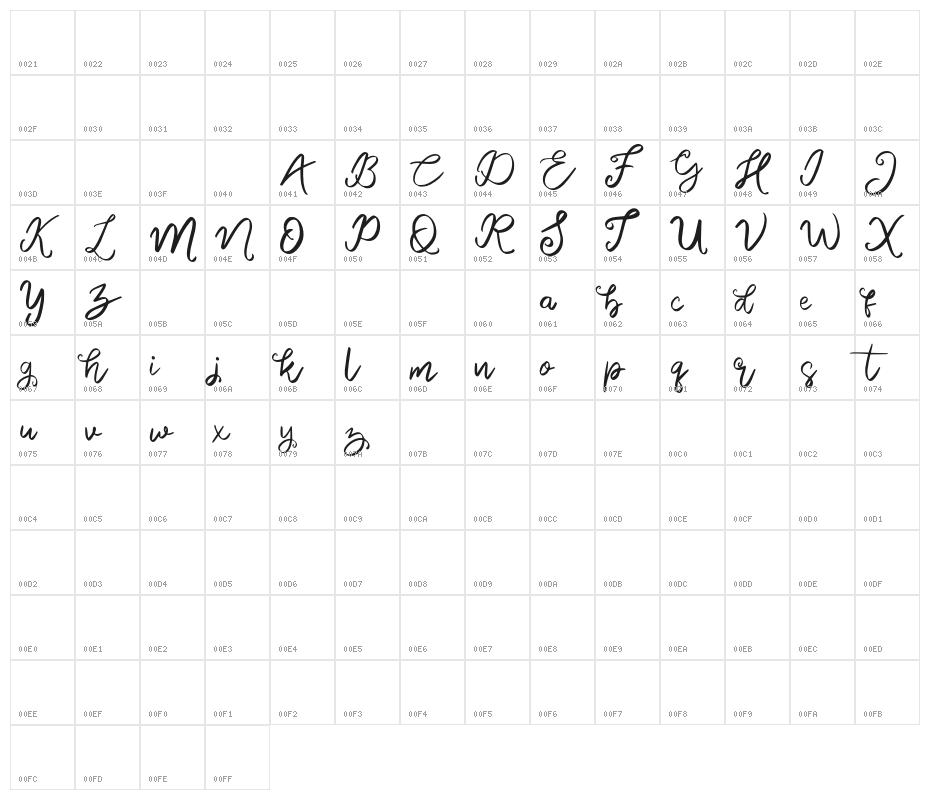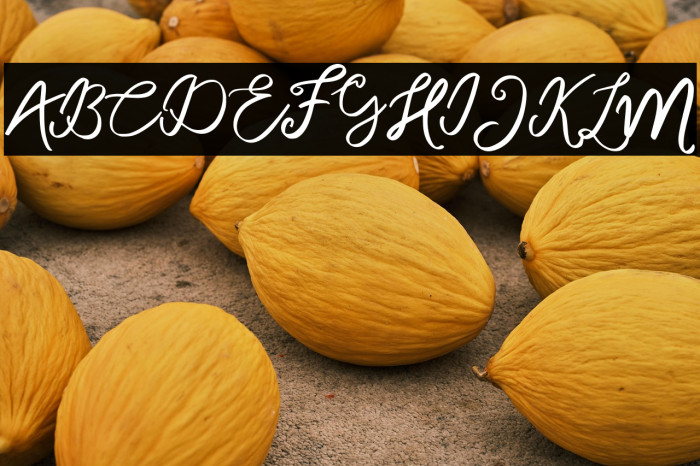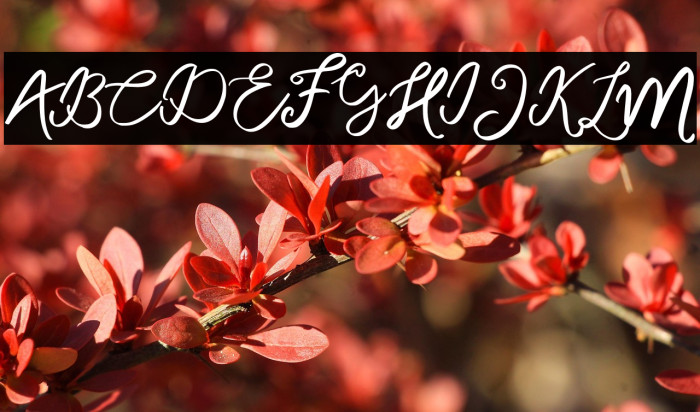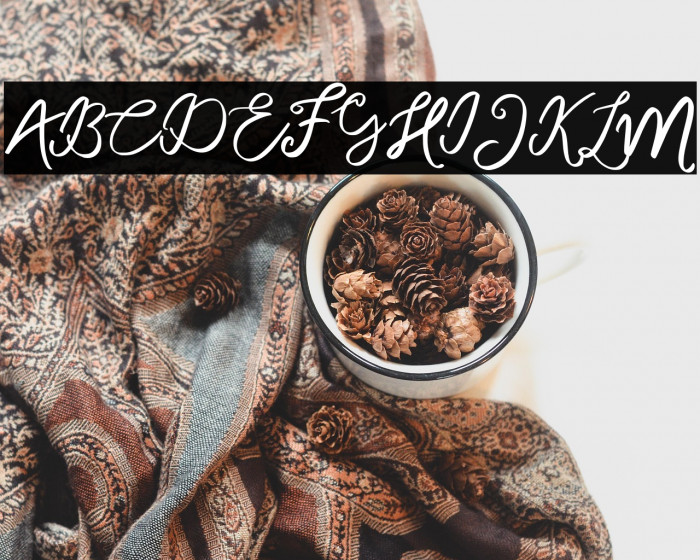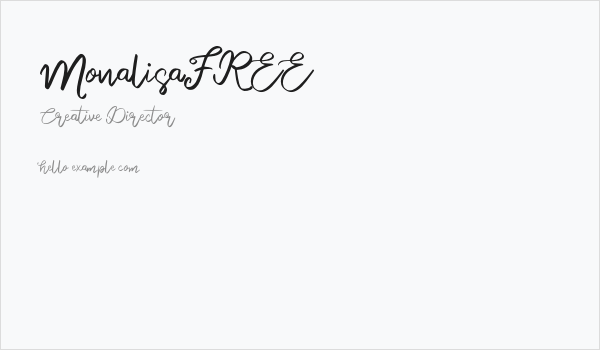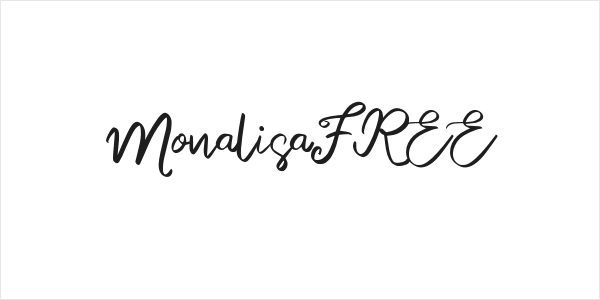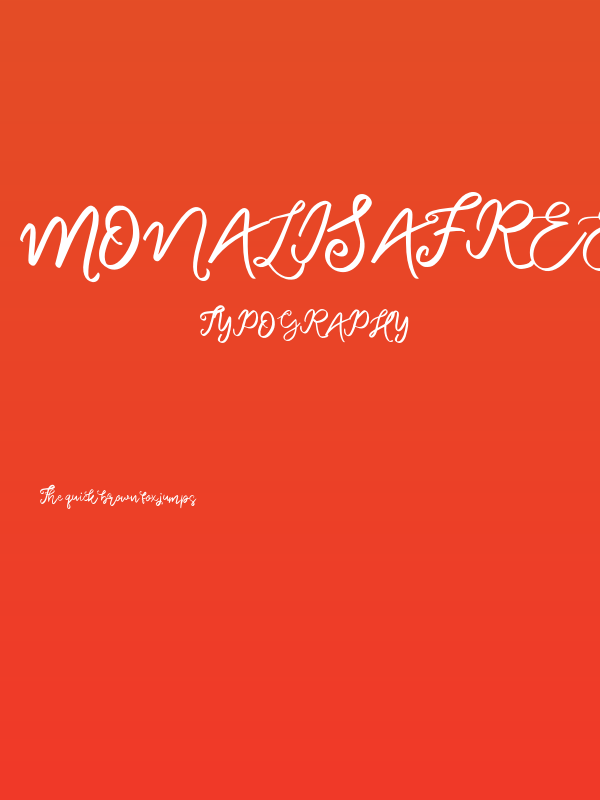
MonalisaFREE Font
MonalisaFREE Description
This font features an elegant and flowing script style, characterized by its cursive and connected letterforms. The uppercase letters exhibit a graceful looped design, while the lowercase letters maintain a consistent fluidity, enhancing the overall aesthetic. The strokes vary in thickness, providing a dynamic and lively appearance. The font's playful yet sophisticated nature makes it suitable for creative and artistic projects. Its unique style is ideal for capturing attention and adding a personal touch to any design.
An elegant, flowing script font with dynamic, connected letterforms from Uncategorized fonts.